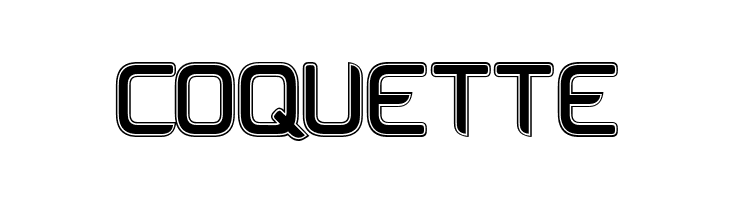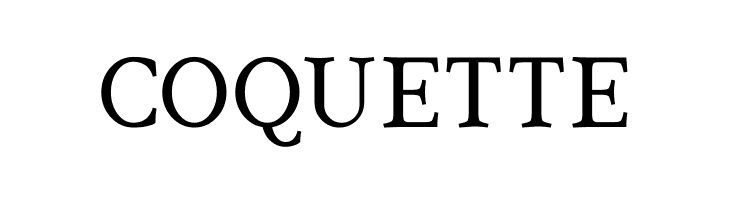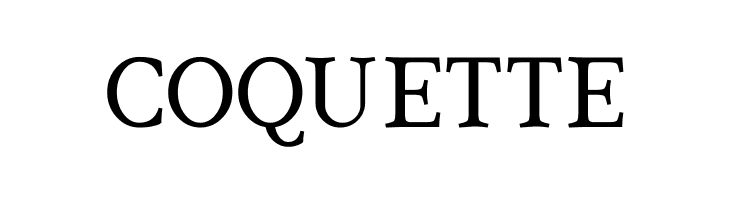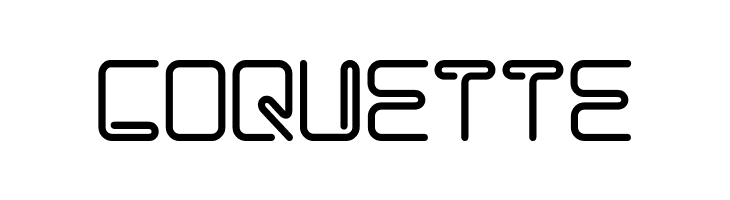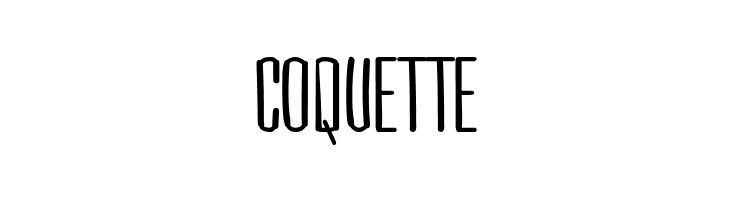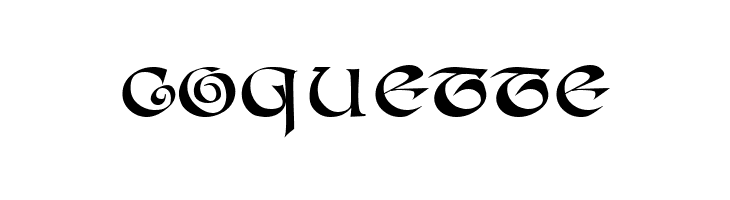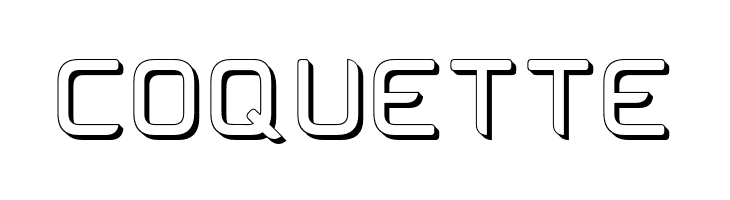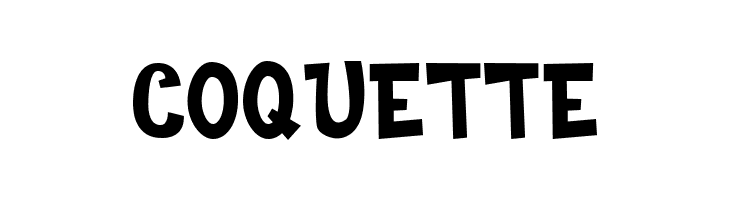
A bold, playful font with exaggerated curves and a whimsical style.
A modern, condensed font with tall, narrow letterforms and consistent stroke width.
A playful, hand-drawn font with irregular strokes and a casual style.
A futuristic, geometric font with bold outlines and rounded edges.
A modern, geometric font with a three-dimensional shadow effect.
A classic serif font with elegant curves and balanced readability.
A classic serif font with elegant curves and balanced proportions.
A modern, tubular font with smooth curves and a futuristic design.
A futuristic, tubular font with a bold, geometric design.
An artistic and decorative font with coiled, medieval-inspired elements.